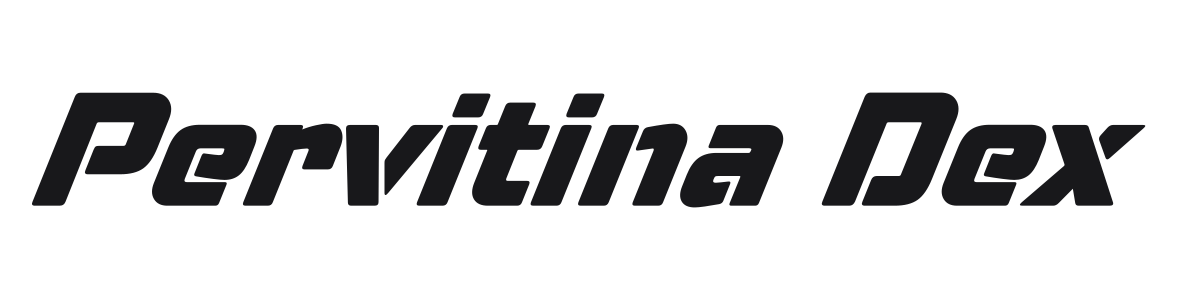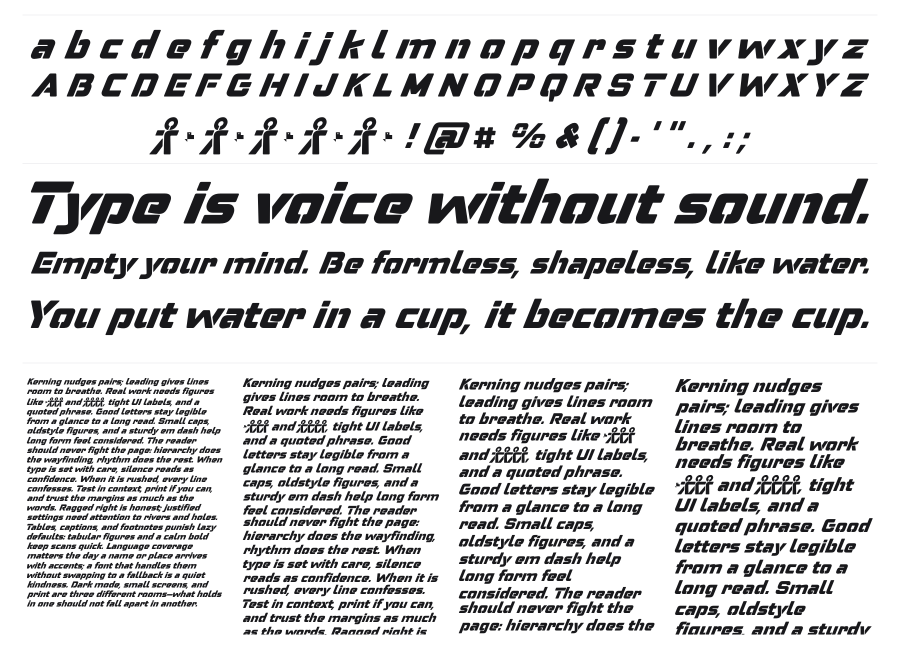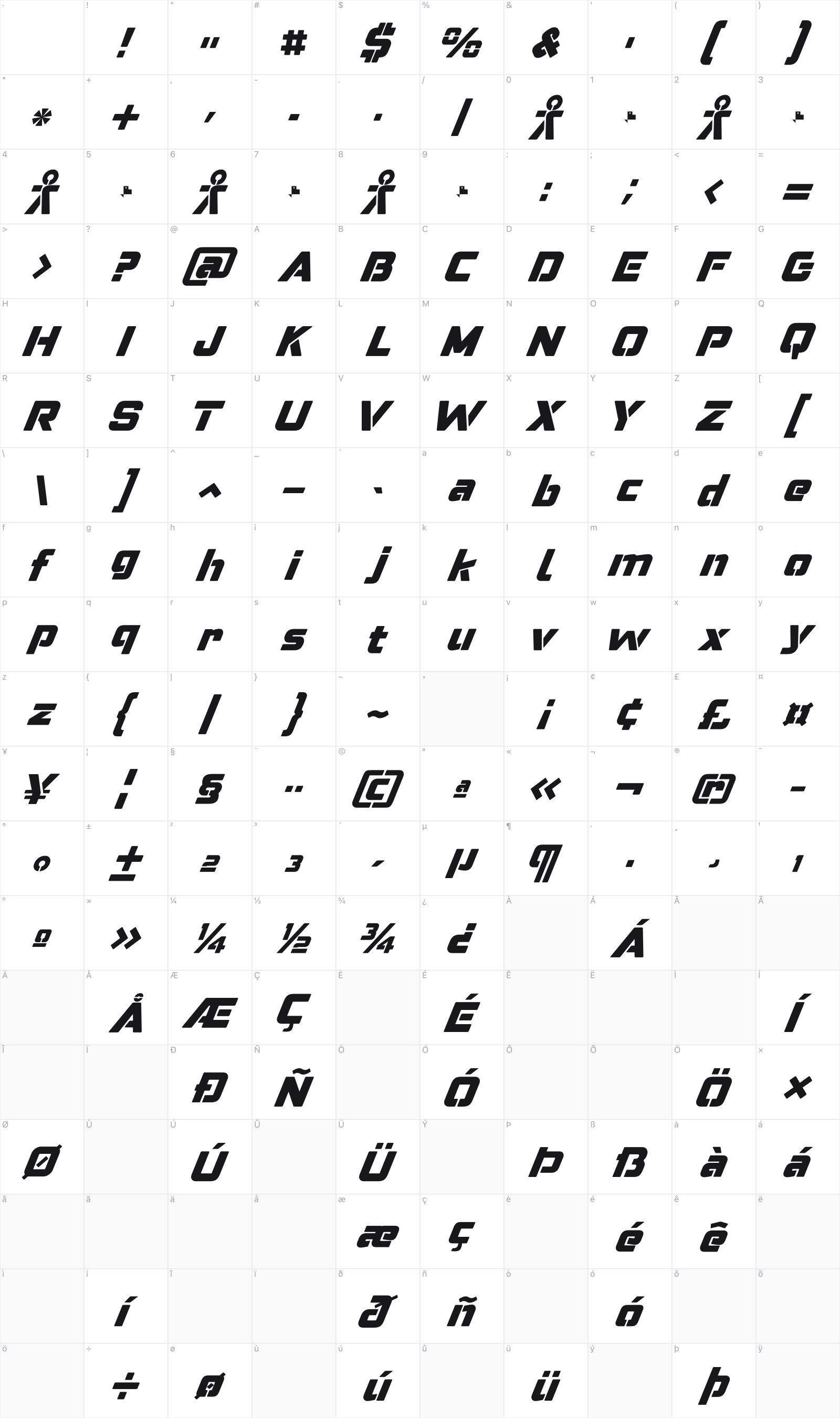
Pervitina Dex
Pervitina Dex is a heavy neo-stencil display face slanted at 22 degrees, built for headlines that need to hit hard. The rounded stencil cuts soften what would otherwise be a purely industrial edge, giving it a contemporary tech energy. Strong enough for brand identity work, crypto projects, and anywhere a bold, fast-moving voice is needed.